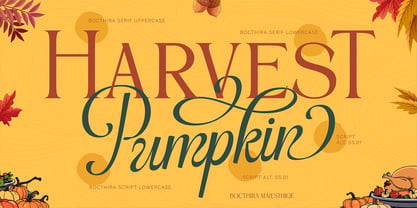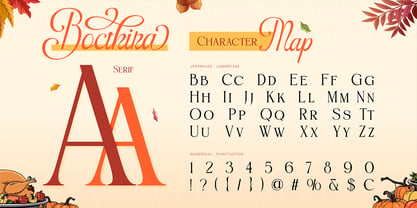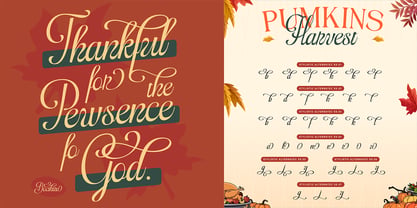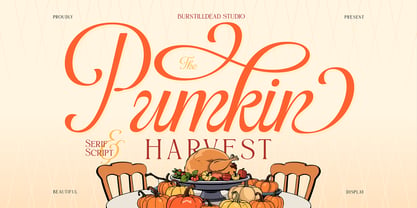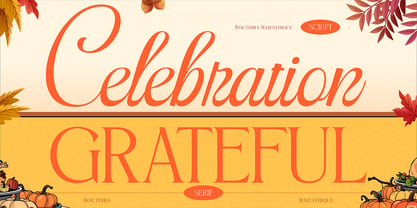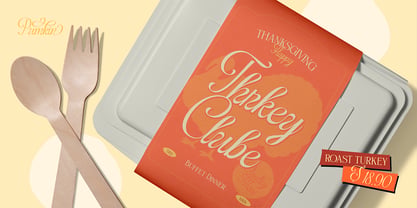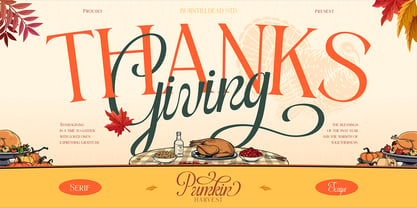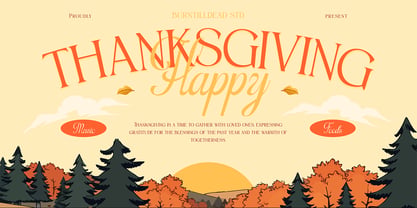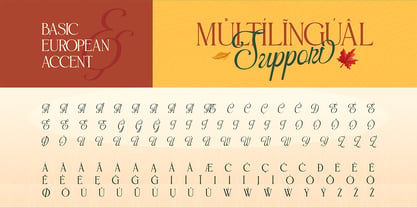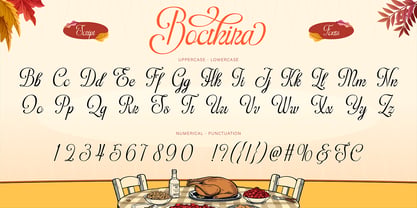
Pumkin Harvest
by Burntilldead
The Pumkin Harvest Font Family was designed by Eric Kurniawan and published by Burntilldead. Pumkin Harvest contains 2 styles and family package options. More about this family
Warm, classic, and full of gratitude, let me introduce Pumpkin Harvest, a beautiful pairing of serif and script that feels just like a cozy autumn dinner with your loved ones. It’s elegant yet welcoming, stylish yet heartwarming. Perfect for holiday invitations, Thanksgiving menus, seasonal branding, and heartfelt greeting cards. The serif gives that timeless and the script add graceful flow — together they create a perfect harmony of sophistication and warmth. Whether you’re designing something to say thank you, celebrate, or simply gather around, Pumpkin Harvest will make every word feel special. Features: A - Z set (Uppercase & Lowercase), Number, Alternates, Punctuation, Multilingual
Designers: Eric Kurniawan
Foundry: Burntilldead